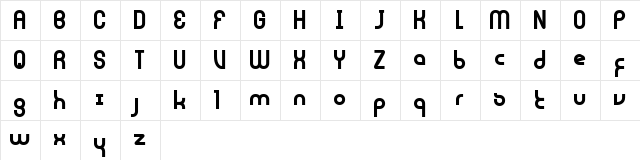
Joulu Fontti Fenotype
Joulu Fontti offers clean, dependable letterforms without strong stylistic allegiance, making it a practical choice for designers who need flexibility.